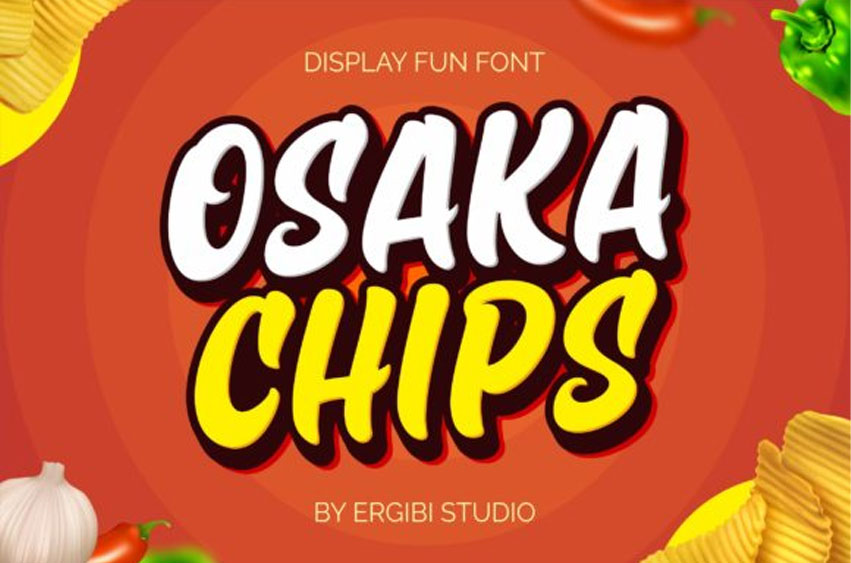
Osaka Chips Font
Osaka Chips Font is a unique uppercase font equipped with very attractive extrude effects.
This font is very suitable for a variety of funny needs, such as chip packaging, snack packaging, or funny quotes.